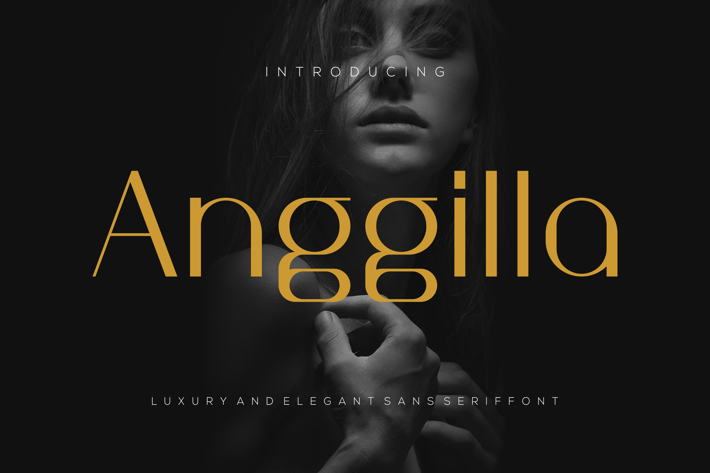
Anggilla - Luxury And Elegant Sans Serif Font
Introducing our new product Anggilla Font - Luxury And Elegant Sans Serif Font
Anggilla Font - Modern Font is a bold and authentic display font. The font is suitable for any branding project like logo,
t-shirt printing, esport, and many more. outstanding in a wide range of contexts.